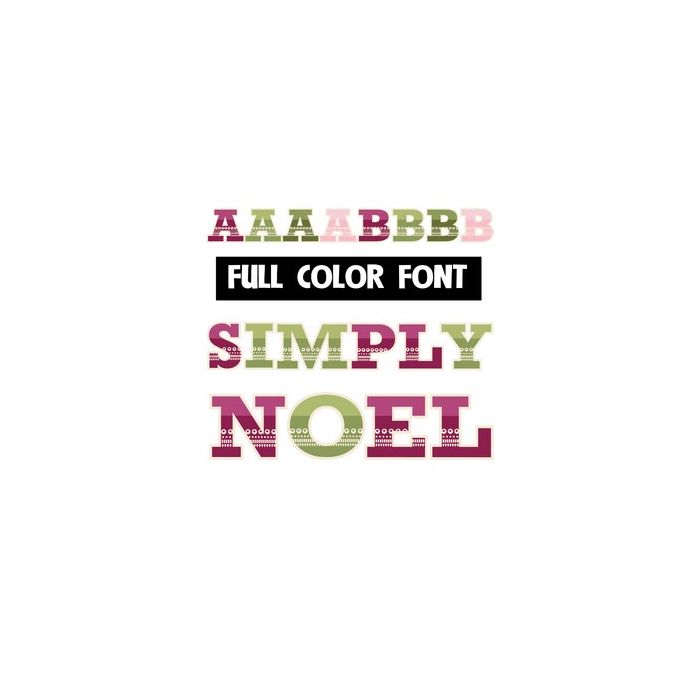
Simply Noel Color Font
This pretty full-color font features slab serif lettering with simple, modern designs. There is a secondary alt case for both upper and lower that you can access through Silhouette's glyph map. This font works best for titles, displays, posters and more. Please note color fonts will show as black in non compatible programs. This font type is compatible with Silhouette Studio.